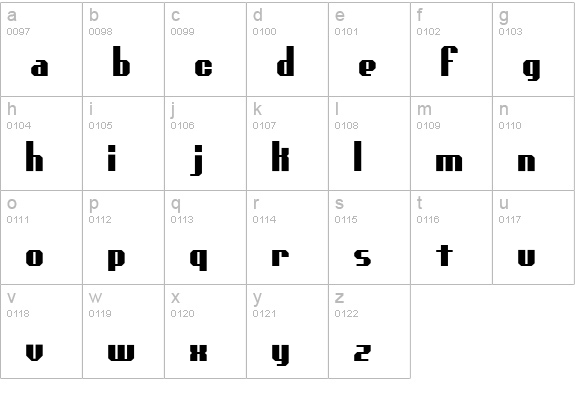
Genotype S-BRK- is a modern and stylish font that exudes sophistication and versatility. With its sleek lines and contemporary design, this font is perfect for a wide range of design projects, from branding to editorial layouts. The unique blend of sharp angles and elegant curves gives Genotype S-BRK- a distinctive look that is sure to make your text stand out. What's even better is that Genotype S-BRK- is available for free download at FontsMarket.com. So whether you're a designer looking to add a fresh new font to your collection or a student working on a project, you can easily access this high-quality typeface without any cost. Don't miss out on the opportunity to enhance your designs with the sleek and modern style of Genotype S-BRK-. Download it now and elevate your typography game!